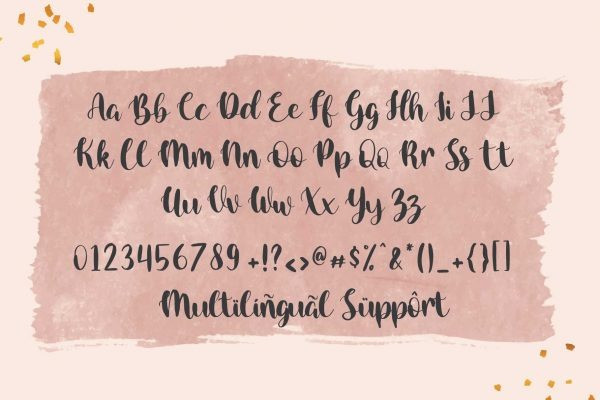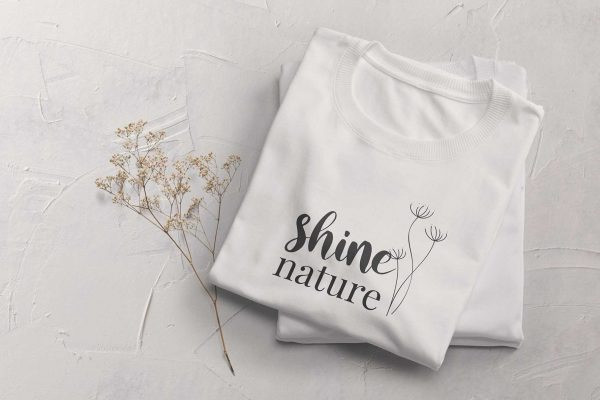
Rose Pertiwi Script Typeface
Rose Pertiwi with script font styles. A collection of letters and numbers suitable your projects also great for Logotype, Branding Design, Logo Design, Digital Lettering Arts, T-Shirt/Apparel, Poster, Magazine, Signs, Advertising Design, and any design needs.
Designer Name: Staircase_Studio